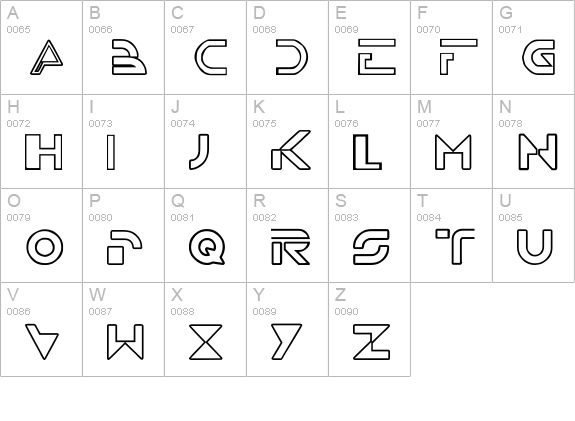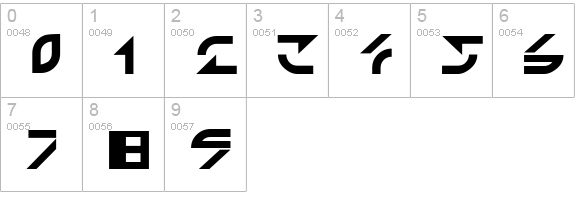
TRON Font Details
Introducing TRON, a captivating and futuristic font that will transport you to a world of sleek lines and cutting-edge design. With its bold and dynamic letterforms, TRON is perfect for adding a modern touch to any project. Whether you're designing a sci-fi movie poster, creating a tech-inspired logo, or simply looking to infuse your designs with a touch of innovation, TRON has got you covered. But what sets TRON apart from other fonts is its unique feature - it's completely free! That's right, TRON is freely available to download at FontsMarket.com. Now you can bring the electrifying energy of TRON to your designs without breaking the bank. Say goodbye to expensive font licenses and hello to creative freedom. With TRON, you'll have access to a versatile font that adapts effortlessly to various design applications. Its sharp and angular strokes give your text a sense of futuristic sophistication, while its clean and precise letterforms ensure legibility in any size. Whether you're a graphic designer, web developer, or simply a typography enthusiast, TRON is a must-have addition to your font library. Its versatility and modern aesthetic make it the perfect choice for projects ranging from high-tech websites to sleek promotional materials. So why wait? Download TRON now from FontsMarket.com and unleash your creativity with this stunning, free font. Get ready to embark on a design journey that will captivate and inspire with the cutting-edge style of TRON.